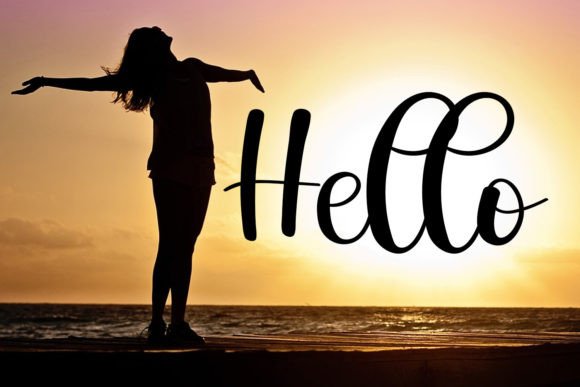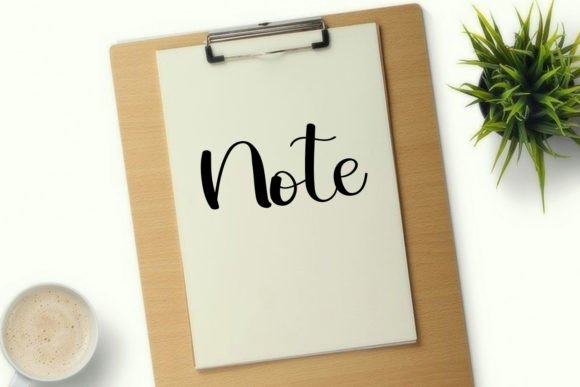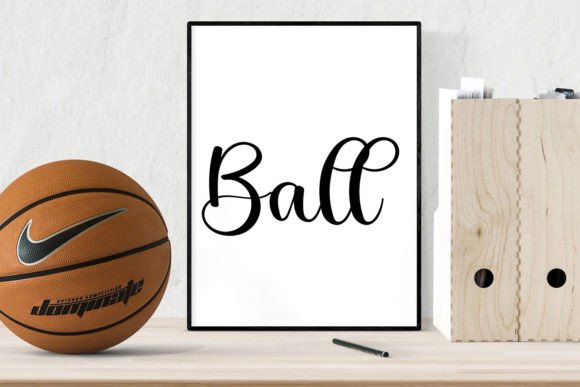
The Perfect Typography for Your Next Creative Project
Have you ever been brainstorming a new design idea, and suddenly, the perfect font pops into your head? That’s exactly what happened to many designers when they stumbled upon the Bottle Font. Its fresh and beautiful design makes it perfect for a variety of projects, from YouTube banners and logo mockups to wedding invitations and flyers.
Bottle Font is more than just a pretty face; it’s a valuable tool for designers looking to elevate their work. With its versatility and stylish aesthetic, this font is sure to give your business a boost and help you stand out in a crowded market. By incorporating the Bottle Font into your designs, you’ll be able to create visually appealing and professional-looking materials that will leave a lasting impression on your audience.
Whether you’re a seasoned designer or just starting out, the Bottle Font is an excellent addition to your toolkit. Its clean lines and elegant design make it perfect for a wide range of creative projects, and its value lies in its ability to help your business progress and develop.
Bottle Font Key Features
- Size: The font family consists of 12 weights, ranging from Light to Black, offering flexibility in design and layout.
- Unique Characteristics: The Bottle Font features a unique, hand-drawn style with subtle imperfections, giving it a distinctive and human touch.
Bottle Font Review
Bottle Font is a beautiful, elegant script font that can add a touch of sophistication to any design project. ✨ Its flowing lines and subtle flourishes make it perfect for creating a sense of luxury and refinement.
- ✨ High-quality design: Bottle Font is a well-crafted font that exudes elegance and sophistication.
- ✨ Versatile: Bottle Font can be used in a variety of contexts, from branding and advertising to wedding invitations and stationery.
- ✨ Unique: Bottle Font’s distinctive style sets it apart from more generic script fonts.
However, there are some limitations to consider. ⚠️ The font may be difficult to read at very small sizes, and some users may find the flowing lines to be distracting or overwhelming.
- ⚠️ Limited legibility: Bottle Font may not be the best choice for body text or other situations where readability is a top priority.
- ⚠️ Potential for overuse: The font’s unique style may make it prone to overuse, which can result in a lack of visual interest.
Overall, Bottle Font is a beautiful and elegant script font that can add a touch of sophistication to any design project. While it may have some limitations, its unique style and high-quality design make it a valuable addition to any font collection.
Tips for Getting the Most Out of Bottle Font
For the best results, use Bottle Font in bold or italic styles to add emphasis to your text. You can also combine Bottle Font with other fonts to create a unique and eye-catching design.
Bottle Font is ideal for use in branding, marketing materials, and creative projects where a unique and playful font is desired. It’s also great for use in digital design, such as social media graphics and website headers.